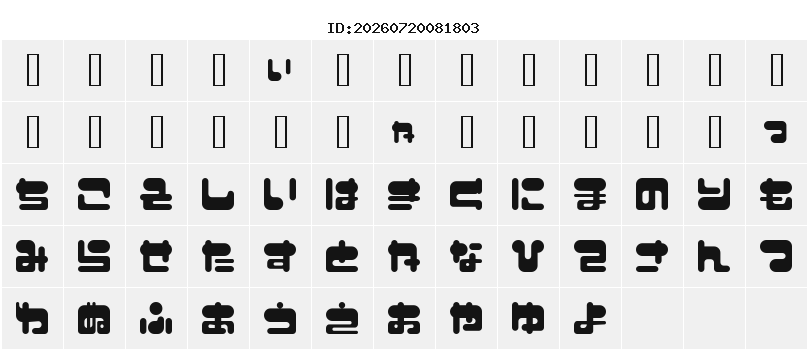
FuwafuwaFururuHS Preview
• Font Name: FuwafuwaFururuHS
• Full Font Name: FuwafuwaFururuHS
About FuwafuwaFururuHS.ttf
FuwafuwaFururuHS.ttf is a modern, elegant sans-serif font designed for ultimate readability and visual harmony. Perfect for branding, headlines, web design, and print materials.